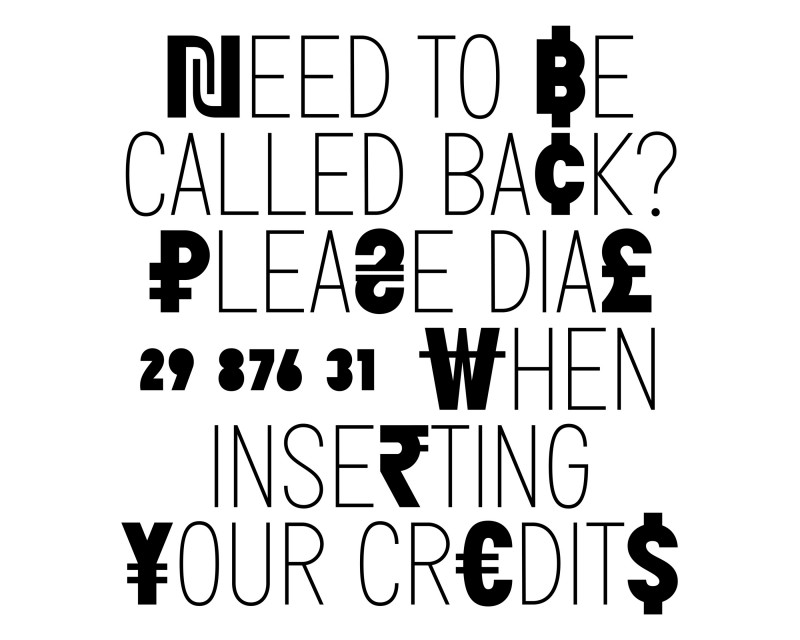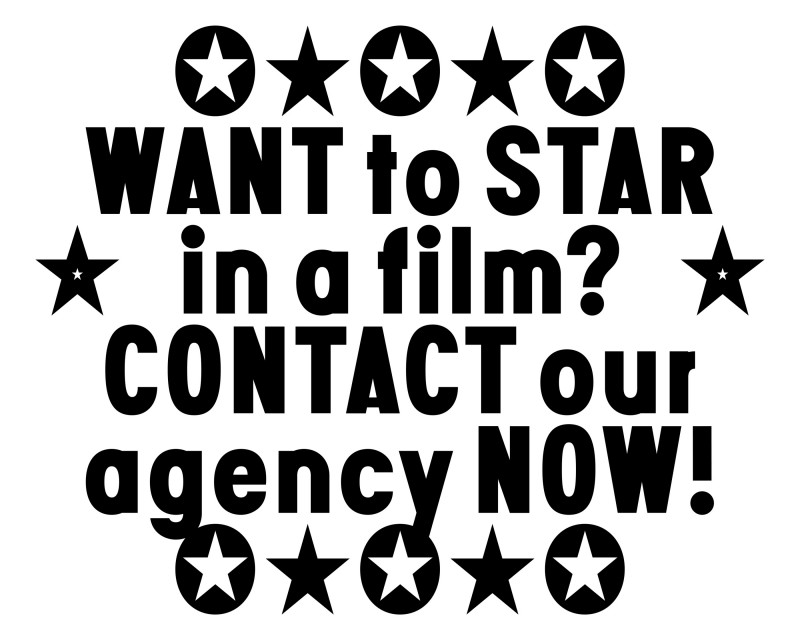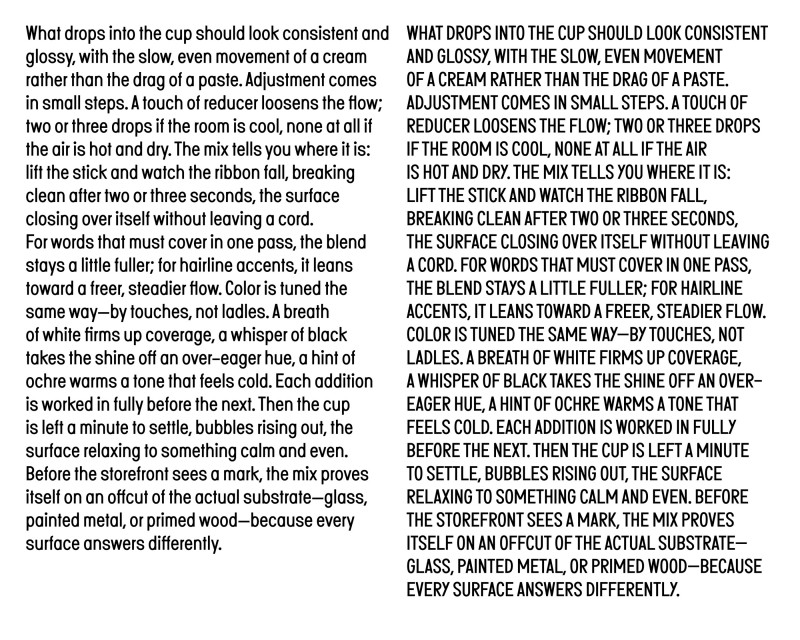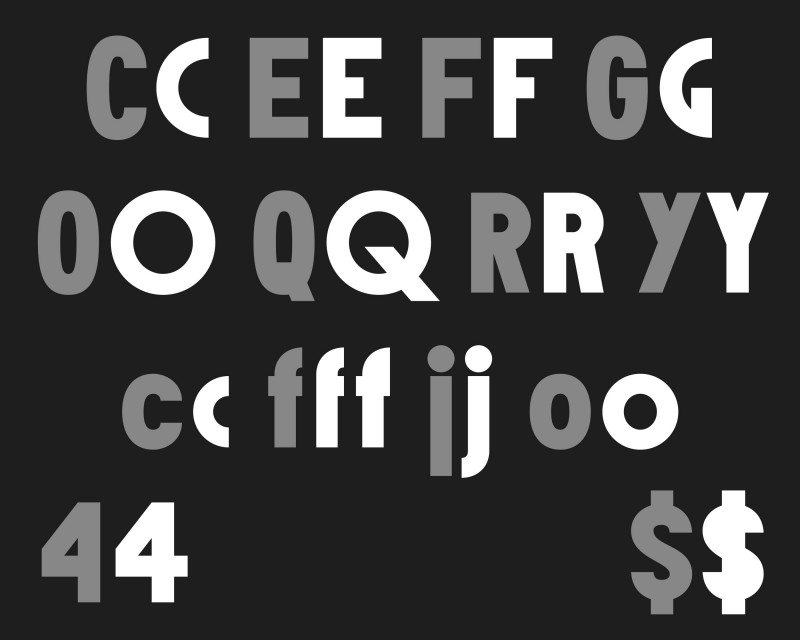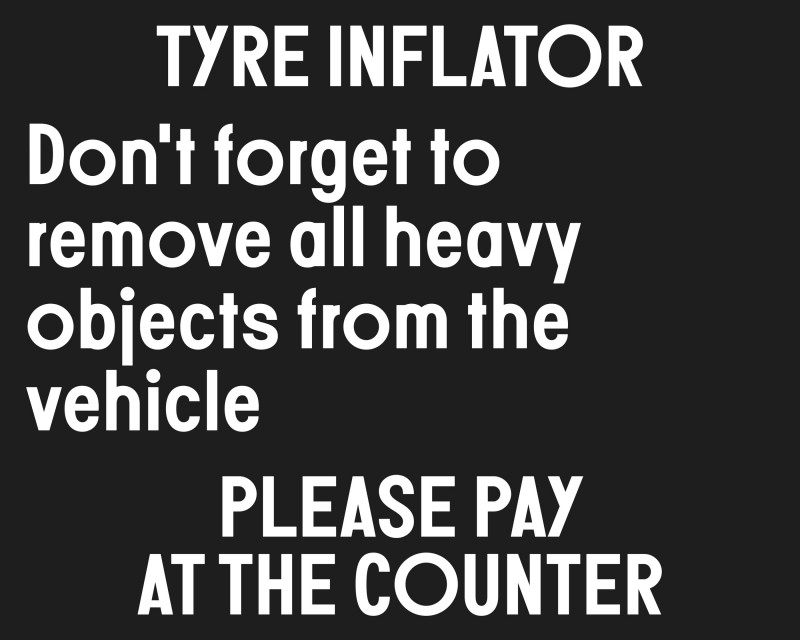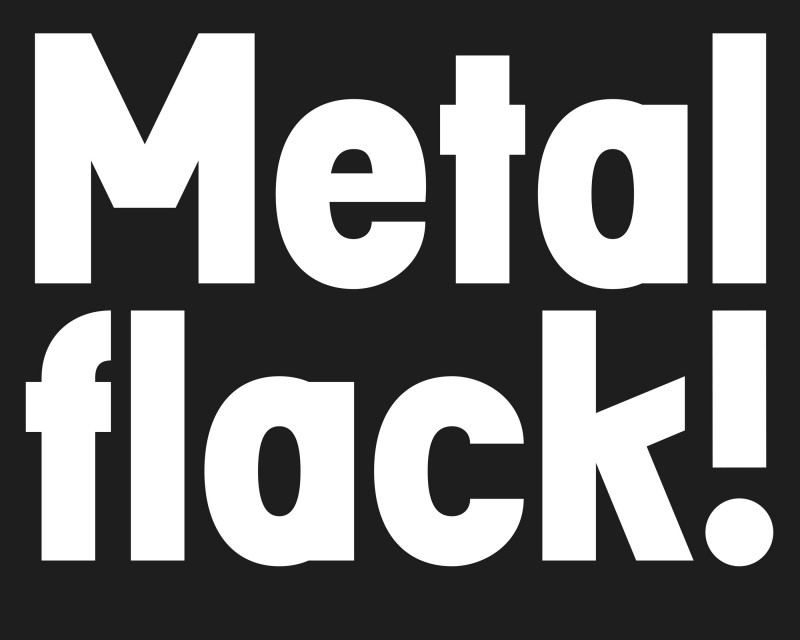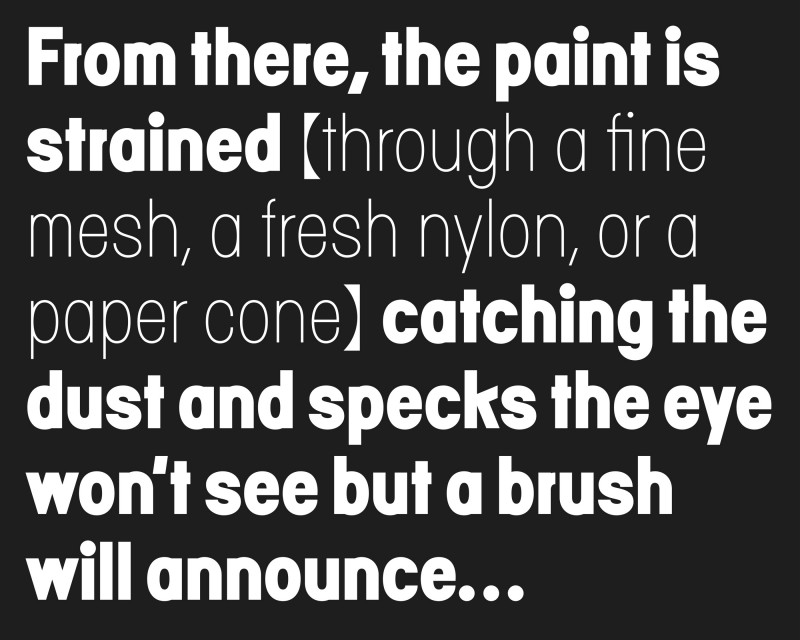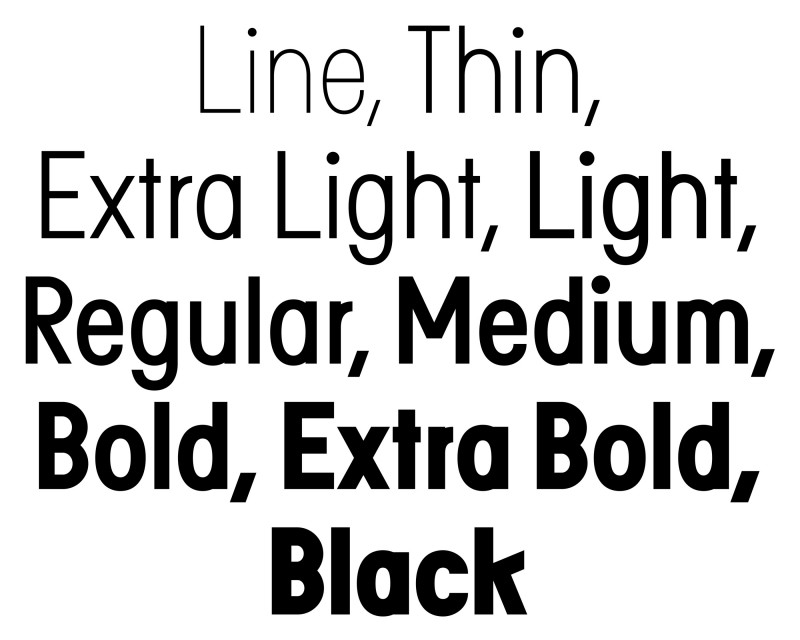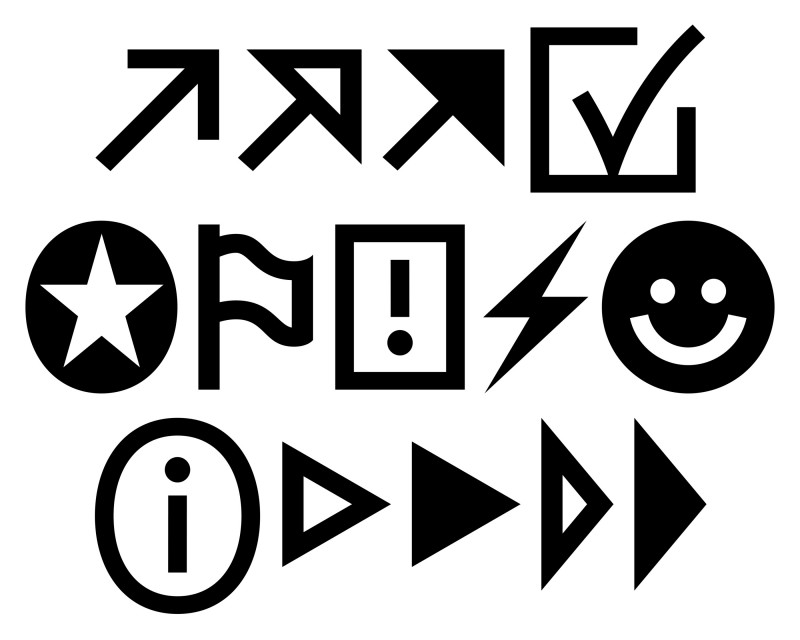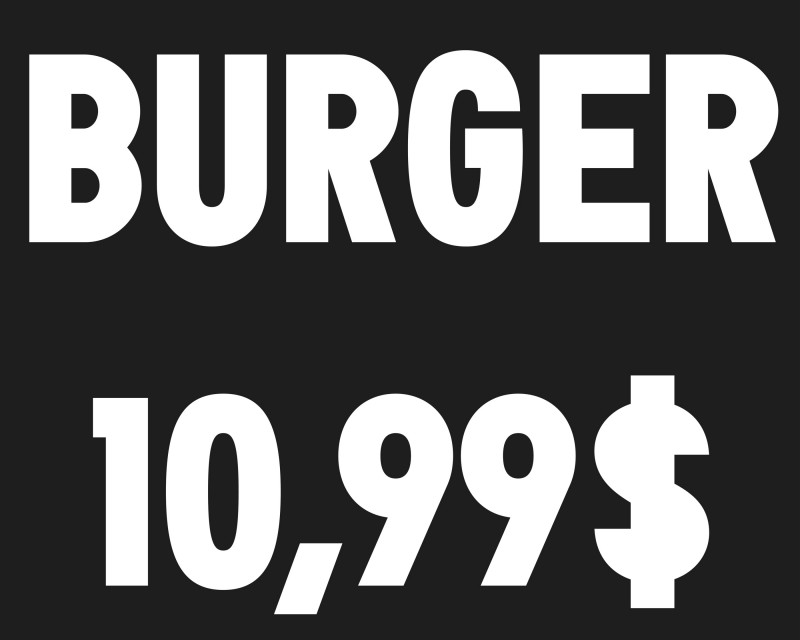
Vermeille is a slightly condensed-industrial-sans typeface designed by Loris Pernoux.
Defined by period authenticity and rooted in vernacular modernism, its low contrast and crisp junctions leave subtly inked corners, bringing a familiar grain and a timeless aesthetic. It sets the layout in motion; its system of weights and widths establishes the tempo, while curved strokes and decisive cuts deliver clean, warm headlines. Sincere in its drawing, it pairs formal restraint with confident intent. From delicate strokes to dense solids, it serves space-efficient text as well as incisive titling, without theatrics.
Line, Thin, Extra Light, Light, Regular, Medium, Bold, Extra Bold, Black
Standard Ligatures
Discretionary Ligatures
Subscript / Superscript
Scientific Inferiors
Numerators / Denominators
Fractions
Ordinals
Case-Sensitive Forms
Stylistic Sets (SS01–SS03)